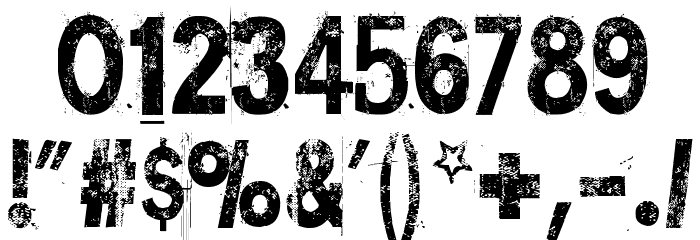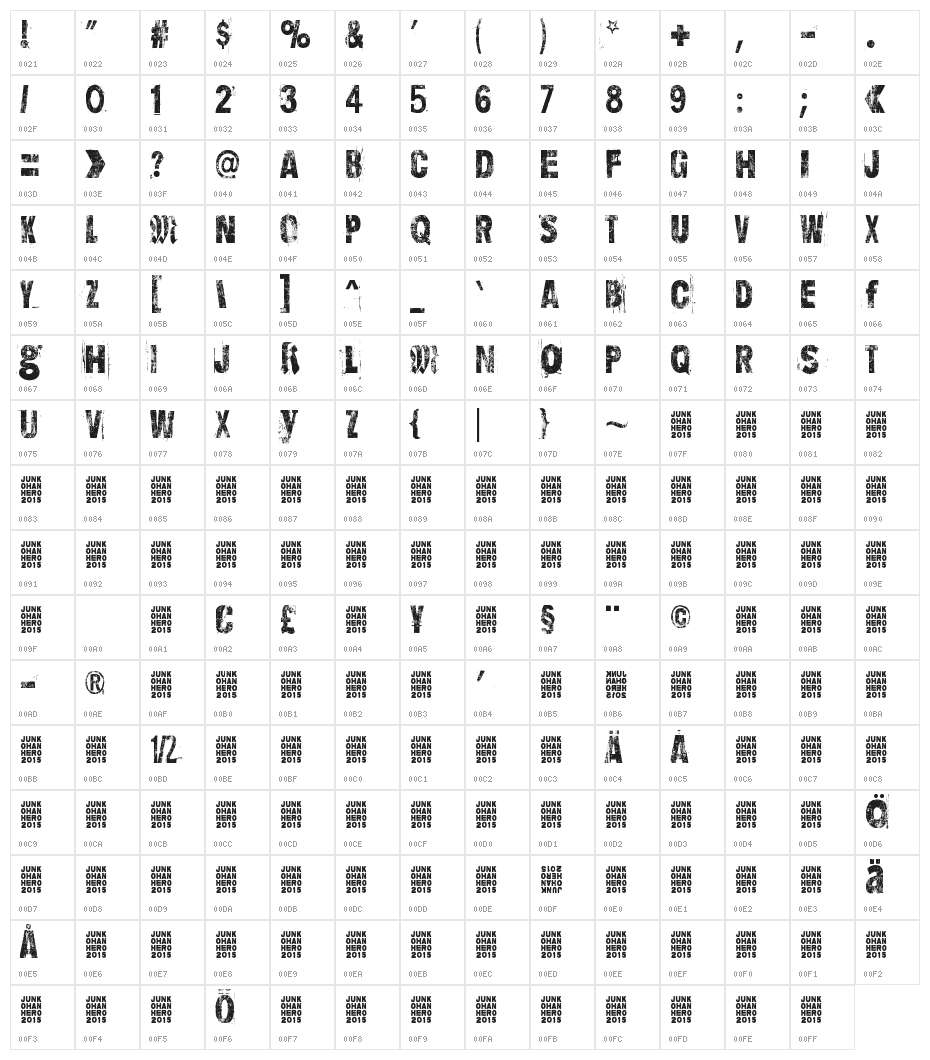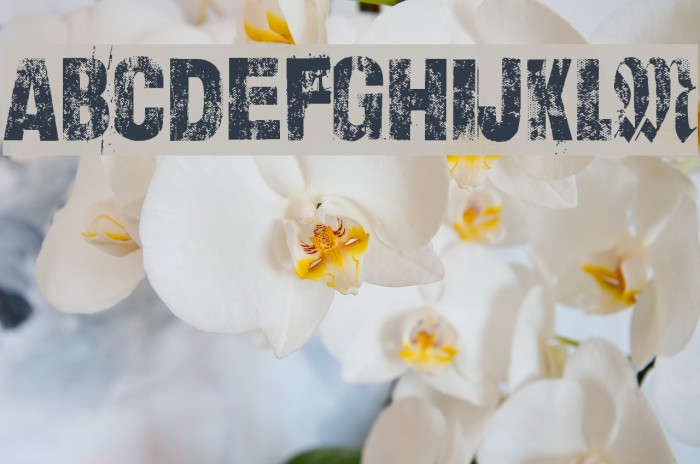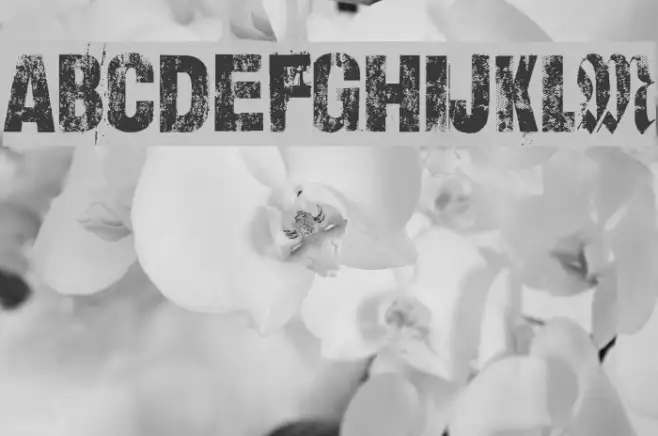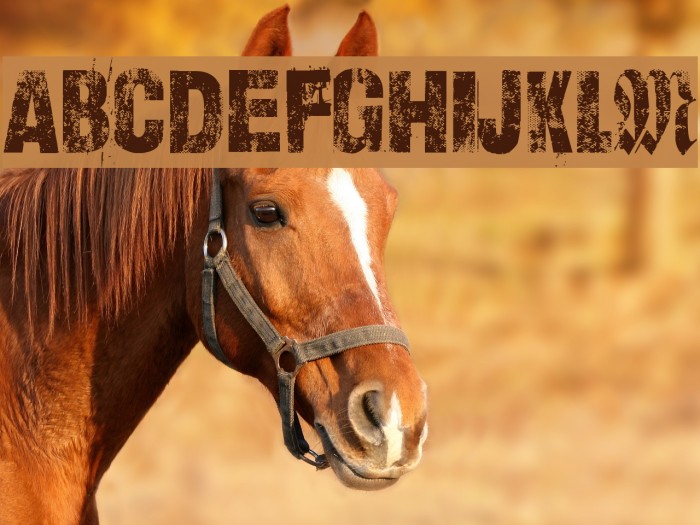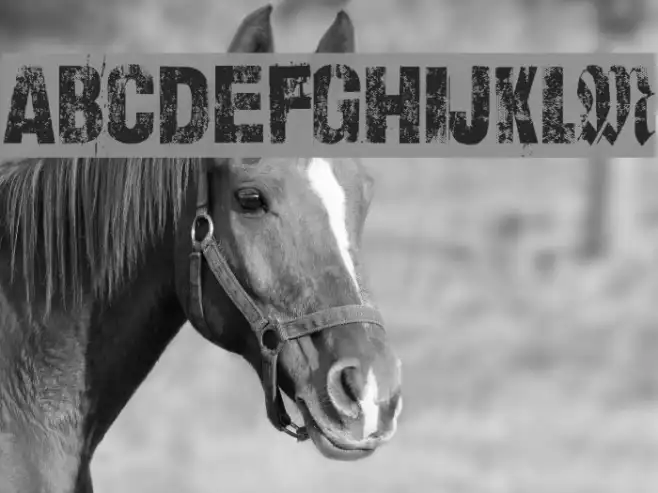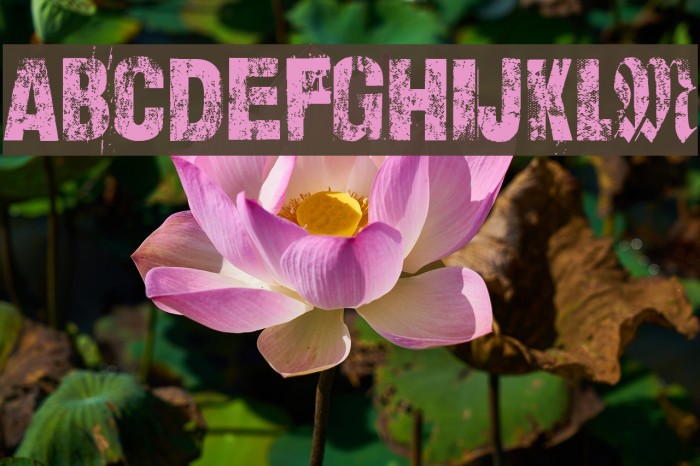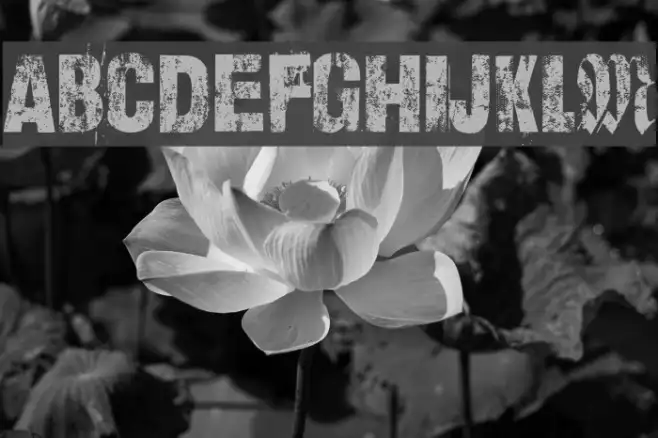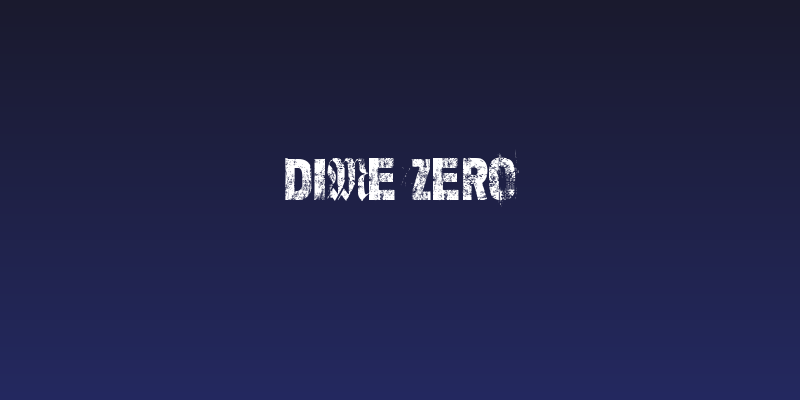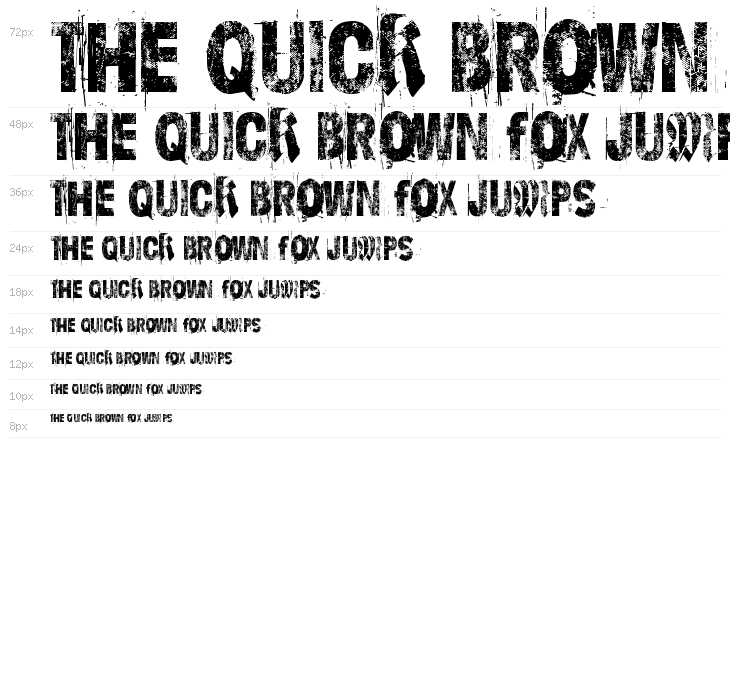
Dime Zero Font
Dime Zero Description
This font features a bold, distressed style with a grunge texture that gives it a rugged and worn appearance. The characters are heavily textured, creating a sense of age and weathering, which adds a unique, edgy feel. The uppercase and lowercase letters maintain a consistent height, while the numbers and special characters follow the same distressed aesthetic. The font's boldness is emphasized by its thick strokes, which are uneven and irregular, contributing to its overall gritty and raw look. This style is perfect for designs that require a strong, impactful presence with a touch of rebellion and nonconformity.
| Overall Style | Grunge, Edgy, Rugged |
| Proposed Projects | Ideal for album covers, posters, urban-themed designs, and branding that requires a gritty, rebellious look. |